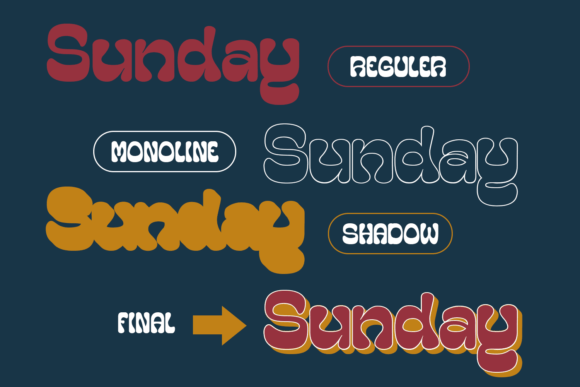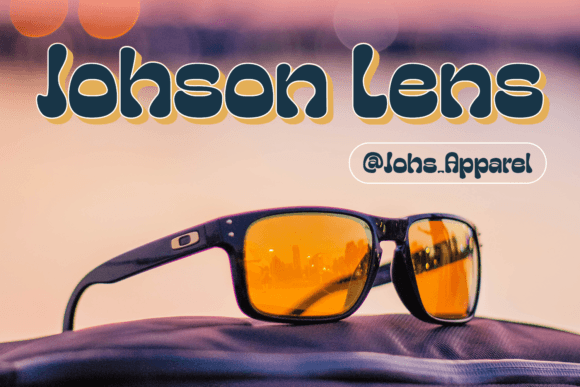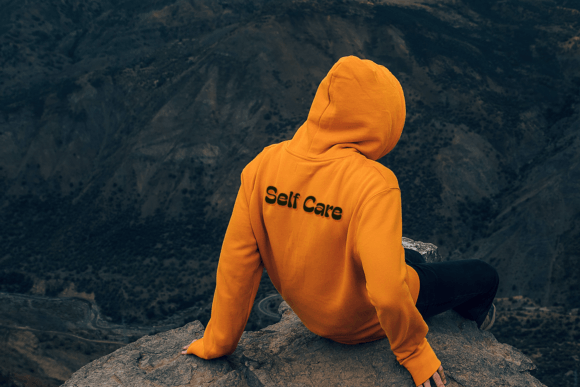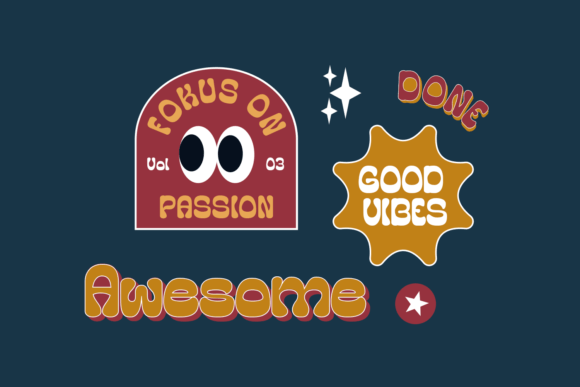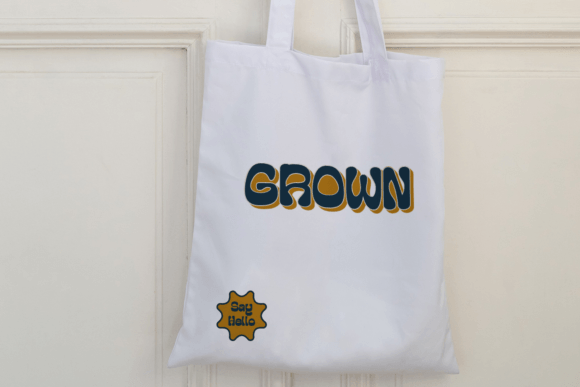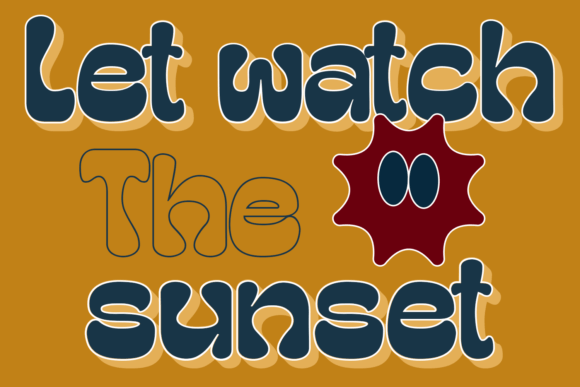
Introduction to Longies Font Font
Fonts play a crucial role in design, and the Longies Font font is a typeface that brings both character and versatility to any project. Whether you’re working on a branding project, a website, or a print design, the Longies Font font offers a unique style that can elevate your work.
Step into a world of timeless style with Longies, featuring the Retro Groovy font.
Longies seamlessly blend retro charm with modern sophistication Its distinctive groovy aesthetics and captivating shadow monoline feature make it the perfect choice for taking your apparel designs to the next level.
Key Features of Longies Font Font
Why Choose Longies Font Font?
The Longies Font font is more than just a typeface – it’s a design tool that helps you communicate your message with style and clarity. Its unique character set and versatile design make it suitable for a wide range of applications, from elegant invitations to bold headlines.
With its carefully crafted letterforms and balanced proportions, the Longies Font font ensures readability and visual appeal across all mediums.
What makes Longies Font font special?
The Longies Font font stands out with its unique design, exceptional readability, and versatility across various design applications.